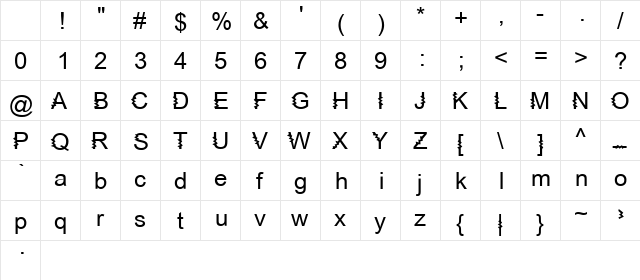
Complete Zing Diddly Doo Regular glyph index. Displaying only characters natively supported by Zing Diddly Doo Regular font.
Zing Diddly Doo is a composed and adaptable typeface that performs quietly and consistently across a wide range of design contexts.